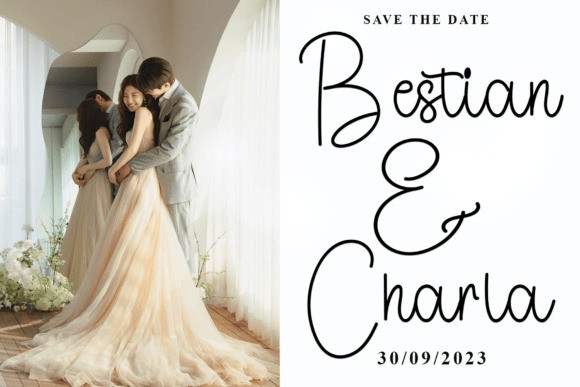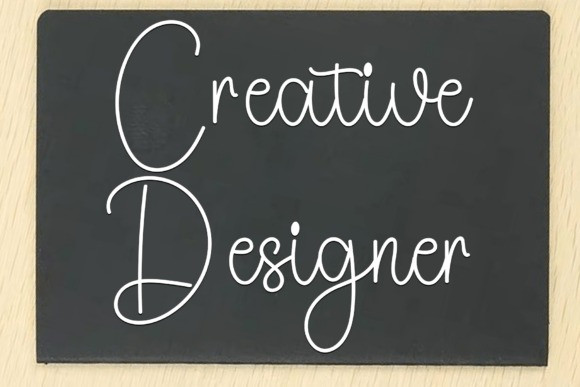
Creative Signature Handwriting Font
Creative Signature Handwriting Font is a simple calligraphy font made for authentic elegance.Its graceful flow and fine-line strokes replicate a natural pen signature, perfect for designers who appreciate sophistication in minimalism.Packed with alternates, ligatures, and multilingual support, this font shines in branding, photography, logos, business cards, stationery, invitations, and fashion designs. Its smooth rhythm makes it ideal for digital and print projects where subtle luxury is key.Creative Signature is your go-to choice for adding a handwritten touch that feels both professional and personal.